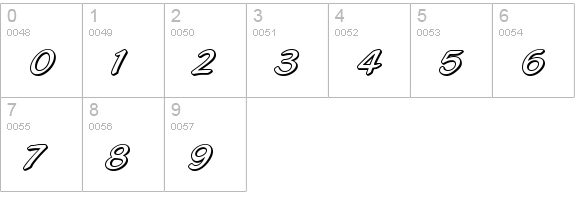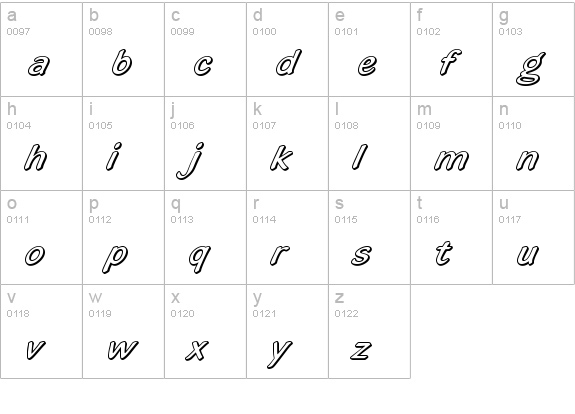
HighlightEF Font Details
Introducing HighlightEF font, a stunning typeface that exudes elegance and sophistication. With its sleek lines and modern flair, HighlightEF is perfect for creating eye-catching designs that demand attention. This versatile font is ideal for a wide range of projects, from logos and branding to packaging and advertising. What sets HighlightEF font apart is its unique blend of contemporary style and timeless appeal. Whether you're looking to add a touch of class to your next project or make a bold statement, HighlightEF has you covered. The clean, crisp lines of this font make it easy to read and versatile enough to use in a variety of design applications. Best of all, HighlightEF font is available for free download at FontsMarket.com. That's right – you can get your hands on this fabulous font without spending a dime. So why wait? Download HighlightEF font today and elevate your designs to new heights of style and sophistication.